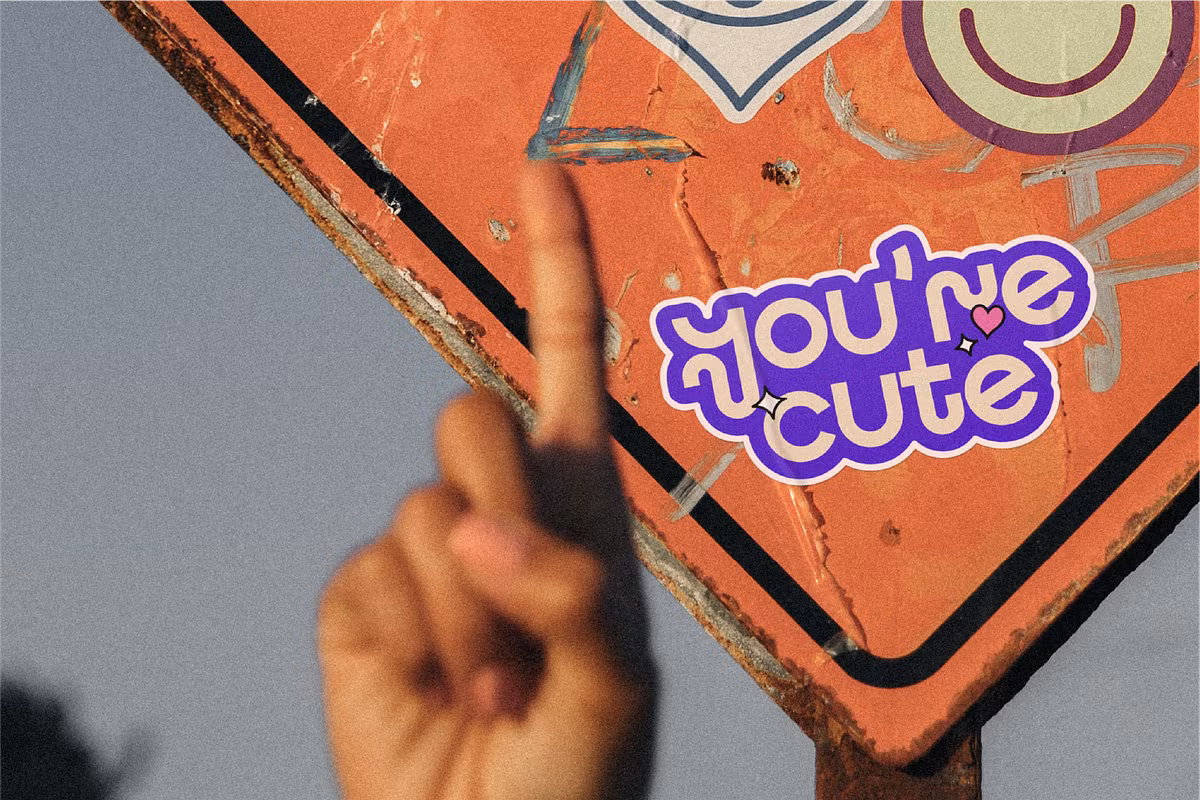
Discover the Heiy Typeface: Elevate Your Creative Projects
If you are looking for a font that catches the eye and adds personality to your designs, Heiy is the typeface you need. I have used Heiy in my projects. Heiy adds a nice style. Heiy is a fun display font that works well for projects such as branding and invitations. In this article, you will see the features of Heiy, learn how to download Heiy, and get tips for using Heiy in your designs.
What makes the Heiy typeface unique?
I notice that the Heiy typeface catches the eye with a fun design. I also see that the Heiy typeface has a style that includes:
- Upper and Lowercase Characters: I notice the typeface includes both lowercase letters. Uppercase and lowercase letters let me be flexible in my text.
- Numbers and Punctuation: Heiy comes with a set of numbers and punctuation marks letting Heiy write messages that are complete and clear. Heiy can then create any message.
Practical Tips for Using Heiy in Your Projects
To make the most of the Heiy typeface in your designs, consider these practical tips:
- Choose the Right Context: I think Heiy’s playful nature makes it ideal for projects such as:
- Event invitations
- Brand logos
- Social media graphics
- Children’s book covers
- Pairing Fonts: I pair Heiy with a contrasting typeface to improve the readability of my text. The simple sans serif font can fit the design of Heiy.
- Experiment with Sizes and Colors: I do not hesitate. I play with sizes and many colors. I see bold colors make the design pop. I see larger sizes draw attention to the design.
Heiy Typeface: A Community Favorite
Why Choose Heiy for Your Next Project?
I think first impressions matter. The right typeface makes a difference. Heiy offers:
- Distinctiveness: Distinctiveness gives your project a style. The unique style sets your project apart from the competition.
- Versatility: Versatility lets you apply the product to tasks. It allows you to apply the product to the projects you have.
- Fun and Engaging Aesthetics: Draws the eye and shows personality. Fun and engaging aesthetics are great for branding and marketing.
Conclusion: Elevate Your Design with Heiy Typeface
The Heiy typeface is more than a font. The Heiy typeface is a tool for creativity. I have tried the Heiy typeface and I like how easy it is to use. The Heiy typeface can improve your